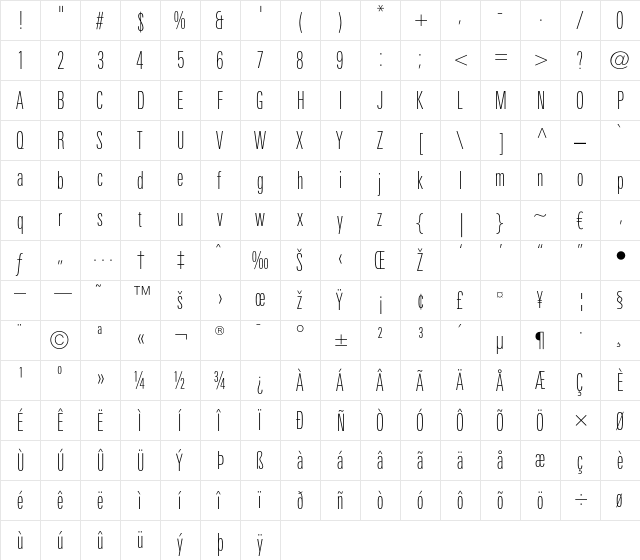
LTUnivers 210 CompThin Font Preview
LTUnivers 210 CompThin
Design Context for LTUnivers Typeface
LTUnivers is a composed and adaptable typeface that performs quietly and consistently across a wide range of design contexts. The delicate stroke weight brings airiness and refinement to layouts.